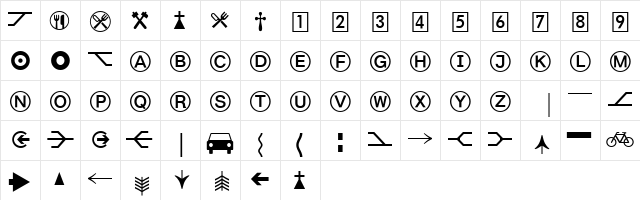
Bundesbahn Pi Regular
Design Context for Bundesbahn Pi Typeface
Bundesbahn Pi is a composed and adaptable typeface that performs quietly and consistently across a wide range of design contexts.